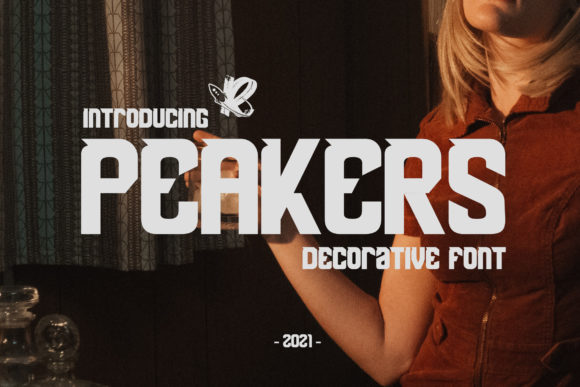
**Introducing Peakers: The Ultimate Font for Captivating Headlines**
Peakers, an exceptional display font, is meticulously crafted to leave an indelible mark on your designs. Its bold, thick letters exude an air of authority, demanding attention and commanding respect. With its uniquely shaped characters, Peakers breaks the mold, setting your creations apart from the ordinary.
This font is the epitome of versatility, seamlessly adapting to a vast spectrum of projects. Whether you're crafting eye-catching headlines, designing striking posters, or creating unforgettable logos, Peakers will elevate your work to new heights. Its bold presence effortlessly commands attention, ensuring your message resonates with your audience.
But Peakers isn't just about aesthetics; it's a catalyst for emotions. Its imposing nature conveys confidence and strength, while its distinctive character evokes a sense of intrigue and curiosity. By incorporating Peakers into your designs, you're not simply adding text—you're注入ing your creations with a captivating personality that speaks volumes.
Peakers is the perfect choice for designers seeking to make a lasting impression. Its bold, eye-catching letters will turn heads and leave an unforgettable mark. So why settle for ordinary fonts when you can unleash the extraordinary with Peakers? Let this font be the cornerstone of your captivating designs, propelling your message to new heights of impact and engagement.